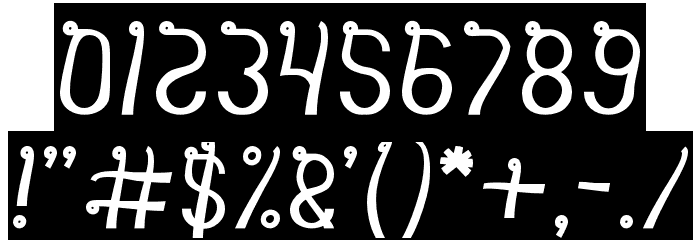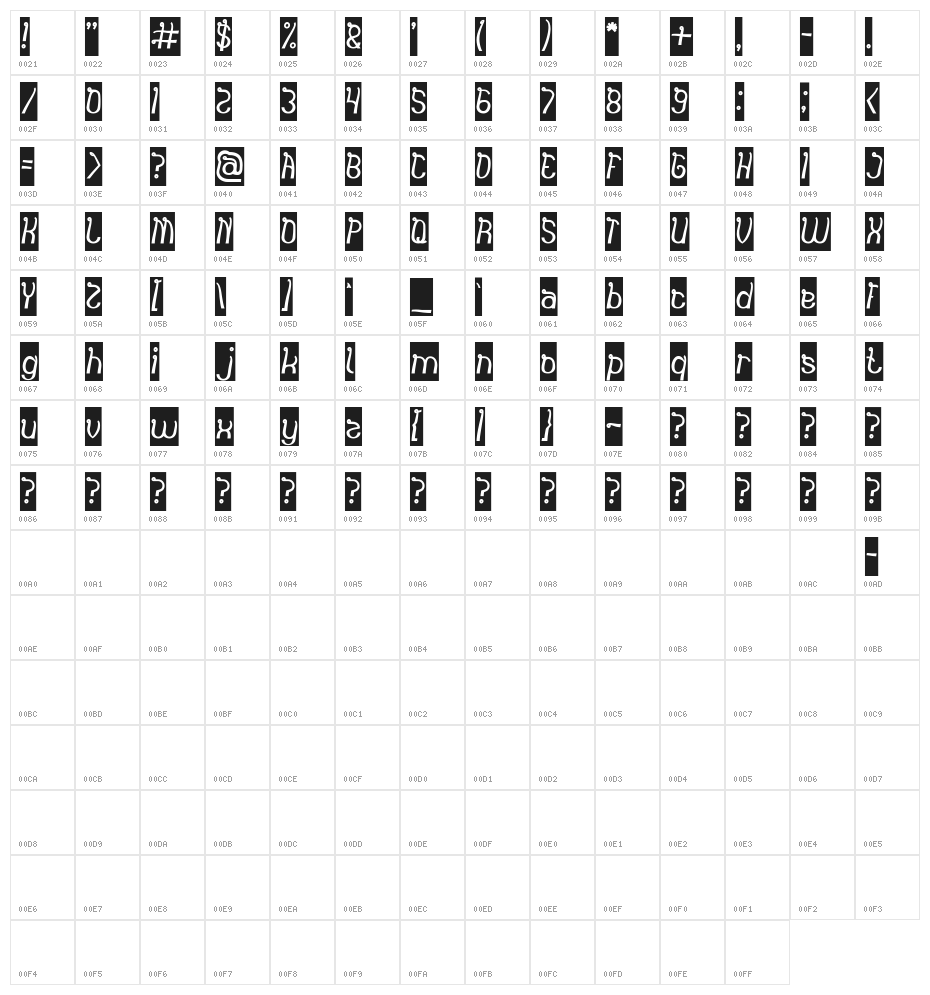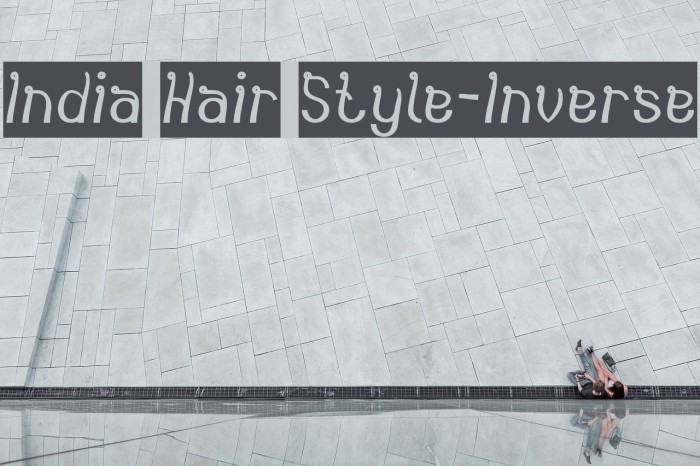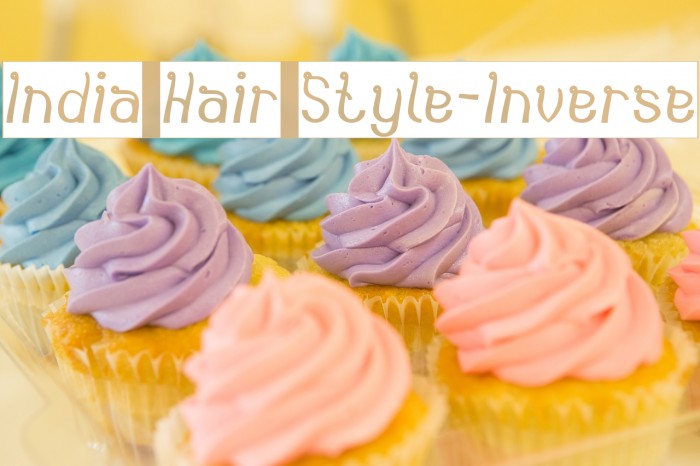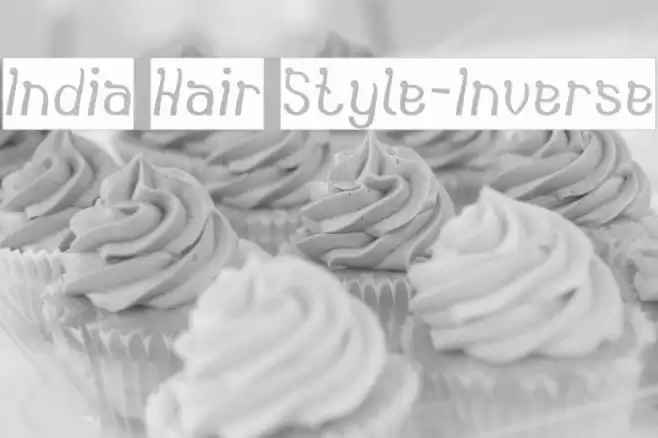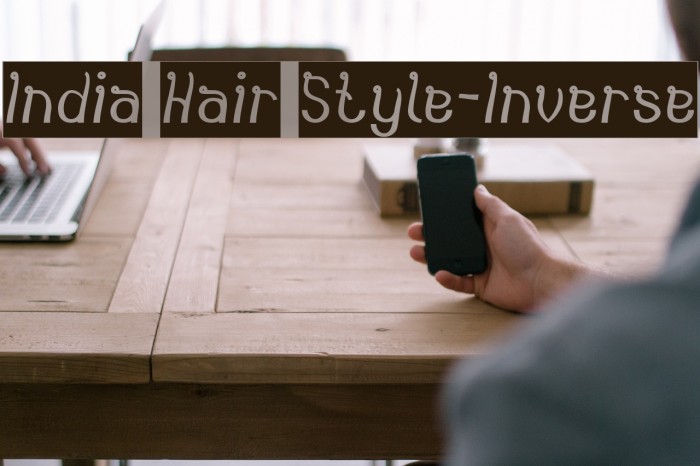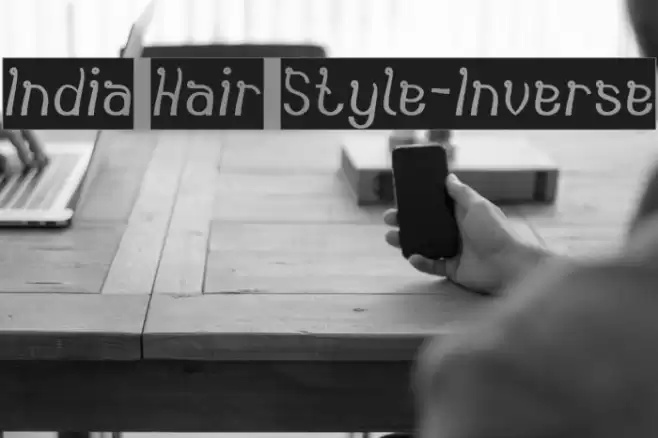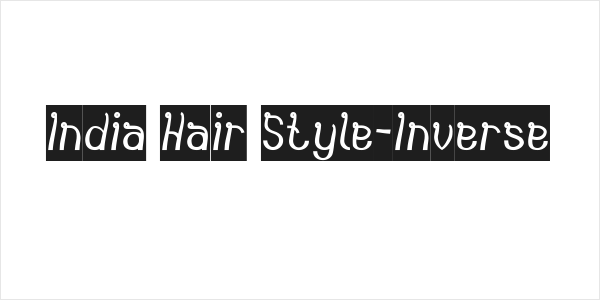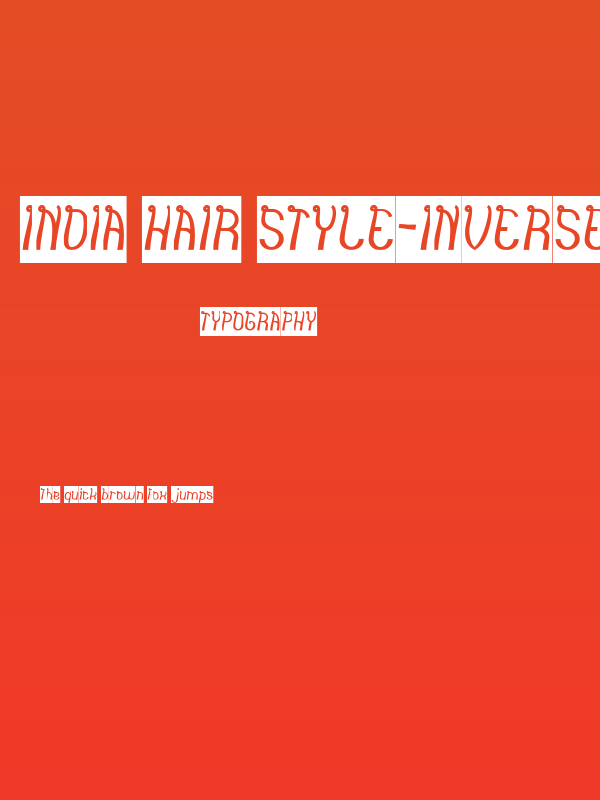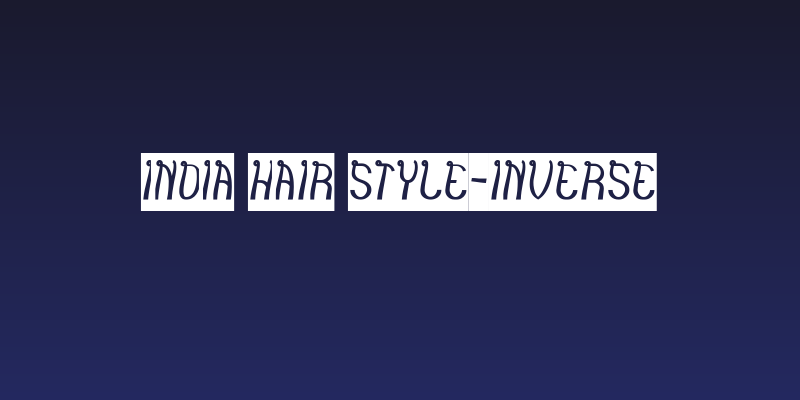
India Hair Style-Inverse Font
India Hair Style-Inverse Description
This font features a unique and playful design with distinctive curls and loops at the ends of each character, reminiscent of traditional Indian artistic styles. The letters are bold and have a consistent stroke width, giving them a strong presence. The uppercase and lowercase characters maintain a cohesive style, with the lowercase letters slightly smaller but equally expressive. Numbers and special characters follow the same design principles, ensuring uniformity across all glyphs. This font's decorative elements make it stand out, while its clear legibility ensures it remains functional.